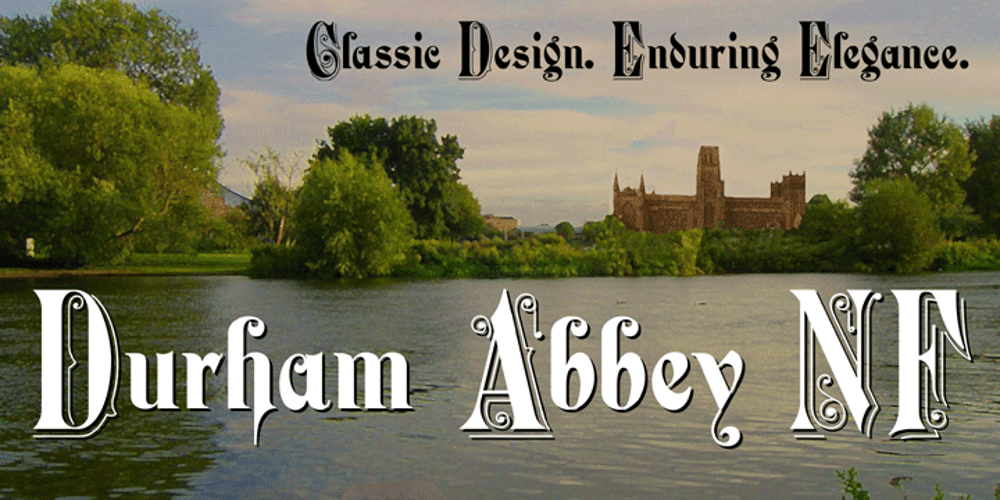
Durham Abbey NF
Durham Abbey NF font
Durham Abbey NF Font Family was designed by Nick Curtis and published by Nick’s Fonts. Durham Abbey NF contains 1 styles and family package options. This graceful charmer is based on a Victorian-era typeface called “Romanesque”. It takes its name from a cathedral in England considered by many to be the finest example of Romanesque architecture in the British Isles. The Opentype version of this font supports Unicode 1250 (Central European) languages, as well as Unicode 1252 (Latin) languages.